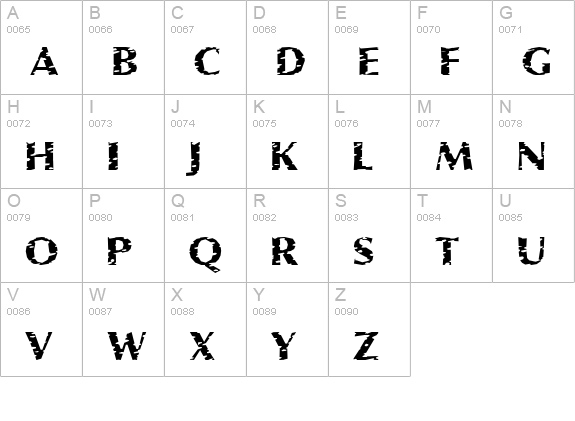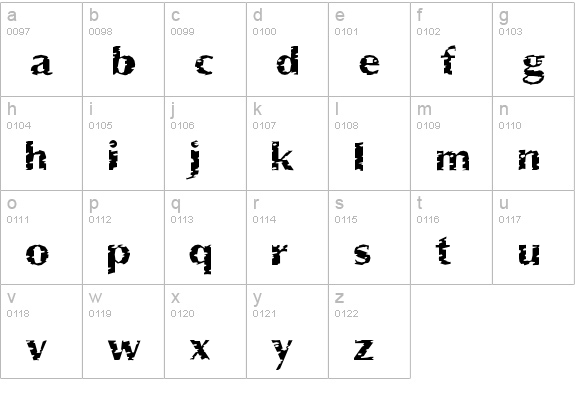
Pessima font is a stunning display typeface that combines elegance with a touch of vintage charm. Its intricate details and unique serifs make it stand out from the crowd, perfect for adding a touch of sophistication to your designs. Whether you're working on branding, packaging, or editorial projects, Pessima font will elevate your work to the next level. The best part? Pessima font is available for free download at FontsMarket.com. This means you can easily access this beautiful typeface and use it in your projects without any cost. So why wait? Add Pessima font to your collection today and let your creativity shine with this exquisite font.